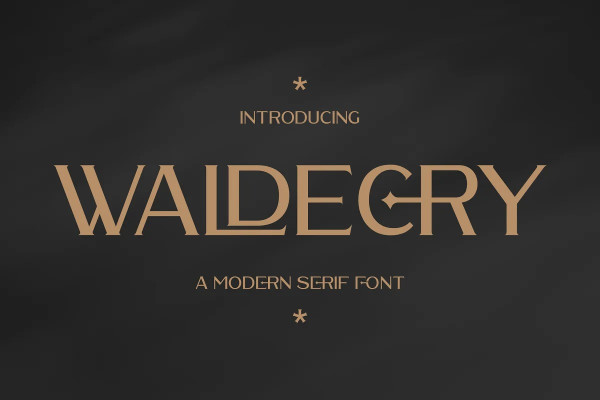
Waldecry Font
Waldecry Font – Modern Serif Font, created by Storytype, A serif modern and classic typeface that has own unique style & modern look. This typeface is perfect for an elegant & luxury logo, book or movie title design, fashion brand, magazine, clothes, lettering, quotes, and so much more.